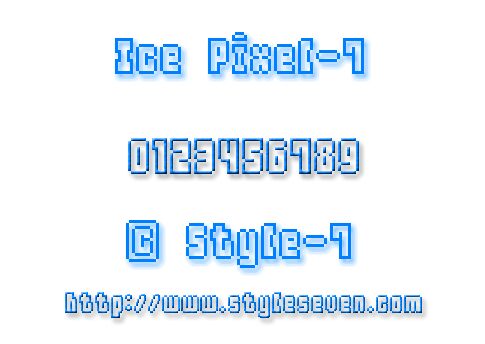
Ice Pixel-7 by Style-7 is a free pixel font with tall, squared letters and a lean electronic profile. Narrow vertical strokes alternate with broad horizontal sections, producing open, angular forms that recall early computer interfaces rather than soft arcade lettering.
Retro technology is its clearest setting. It fits game title screens, electronic music posters, and digital event graphics, where the severe geometry can echo interface panels and hardware markings. The same machine-like lettering also suits science-fiction packaging and merchandise built around terminals, circuits, or industrial electronics.